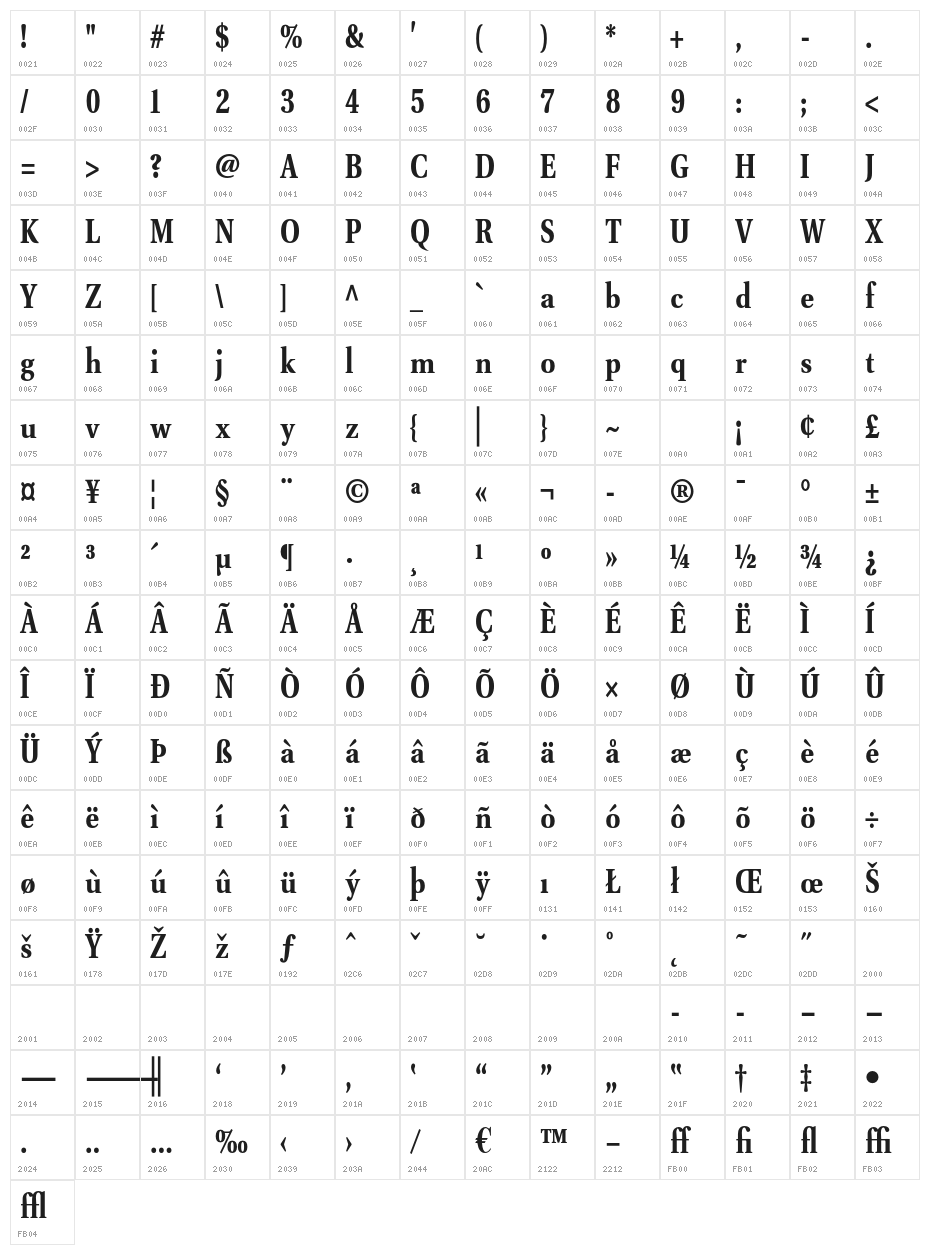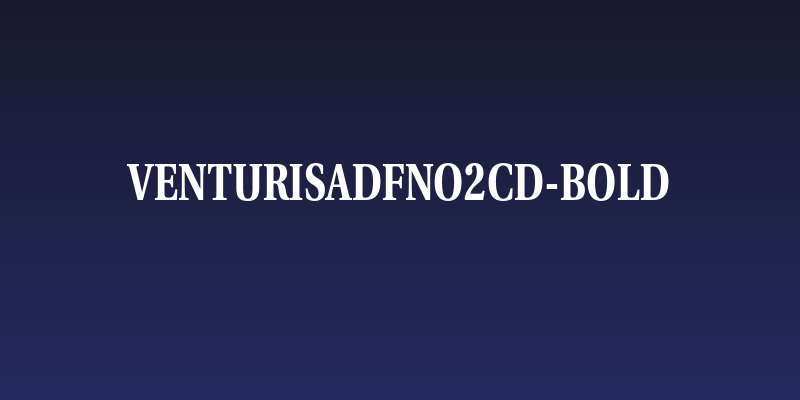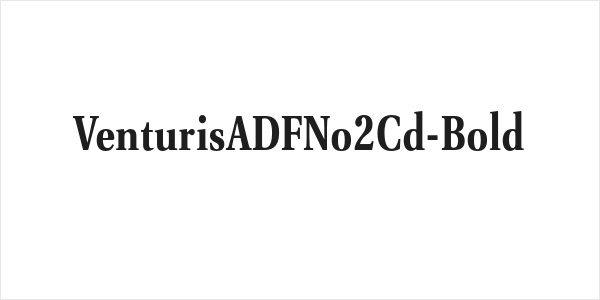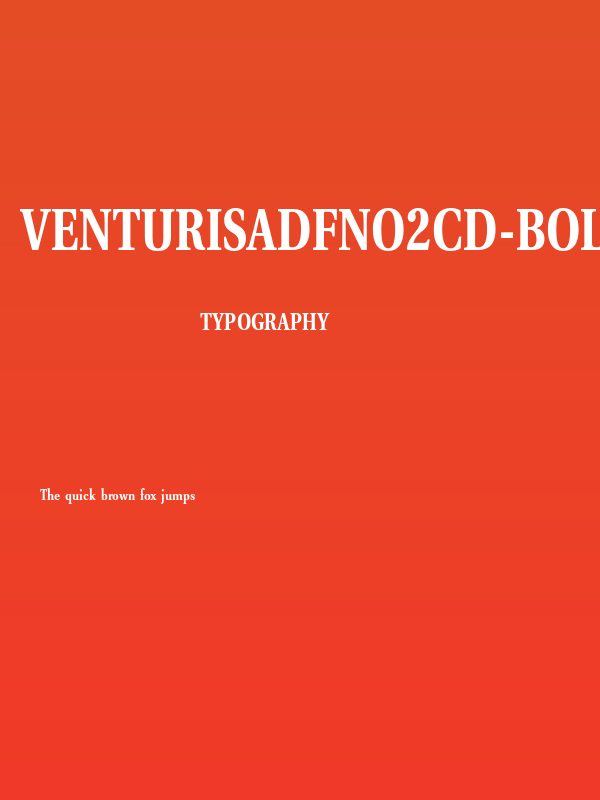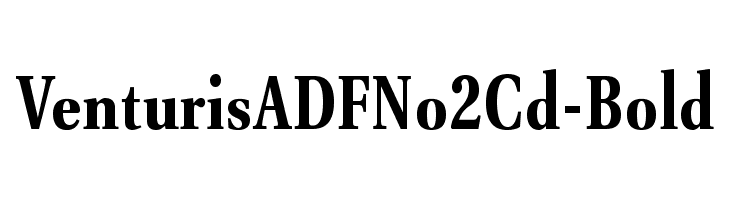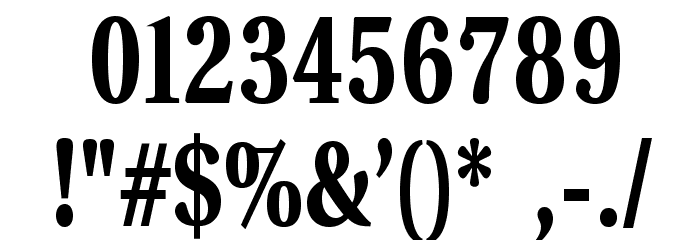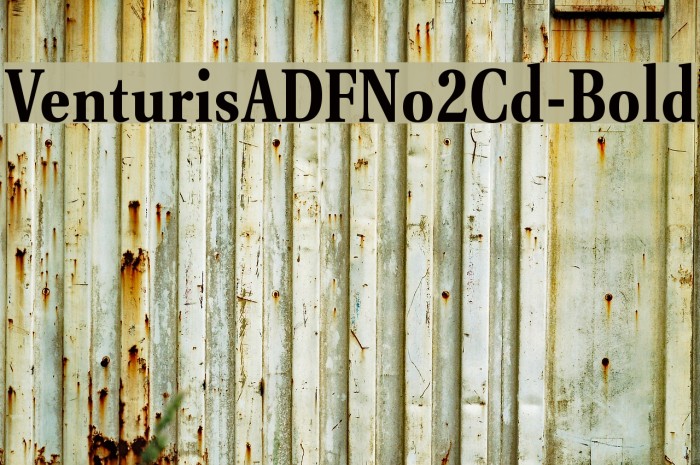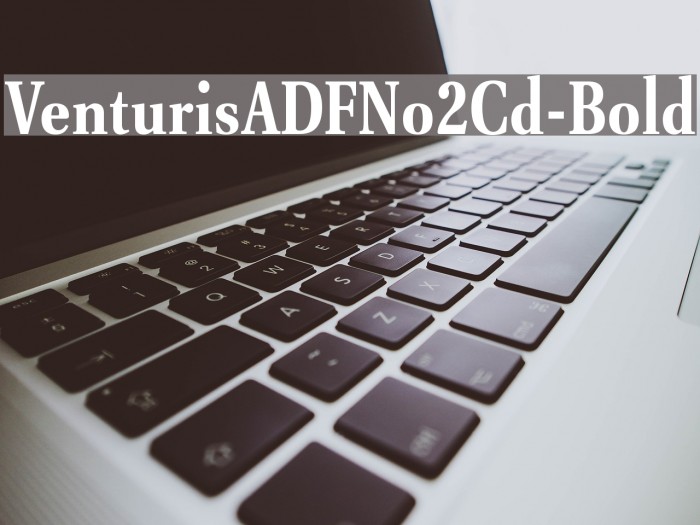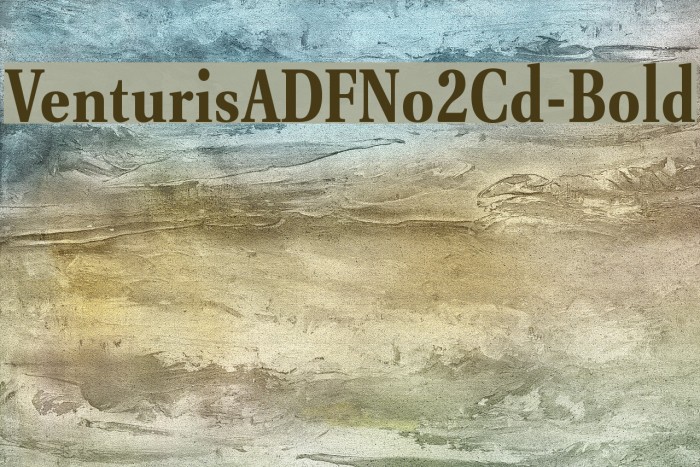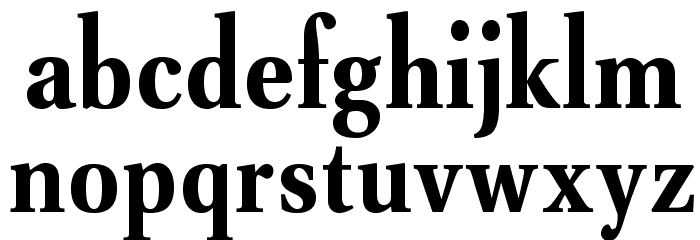
VenturisADFNo2Cd-Bold Font
VenturisADFNo2Cd-Bold Description
This font presents a bold and commanding presence with its strong, thick strokes and classic serif design. The uppercase letters are robust and authoritative, while the lowercase letters maintain a consistent weight, offering a harmonious balance. The numerals are clear and easily distinguishable, making them suitable for various applications. Special characters are well-defined, adding versatility to the font's usage. The overall appearance is traditional yet adaptable, making it ideal for projects that require a touch of elegance and readability.
| Categories | Serif |
| Overall Style | Classic |
| Use Case | Headlines, Logos, Editorials |
| Proposed Projects | Ideal for book covers, editorial headlines, branding, and formal invitations. |